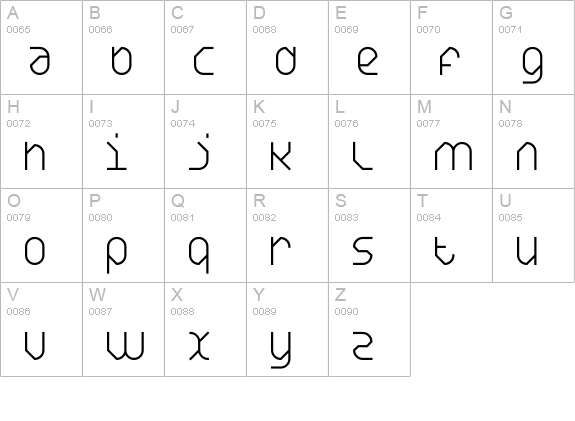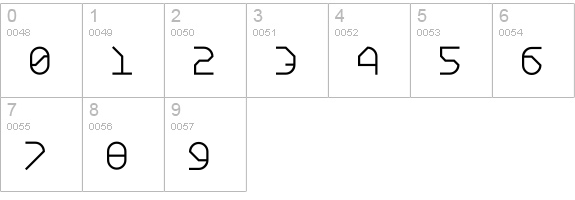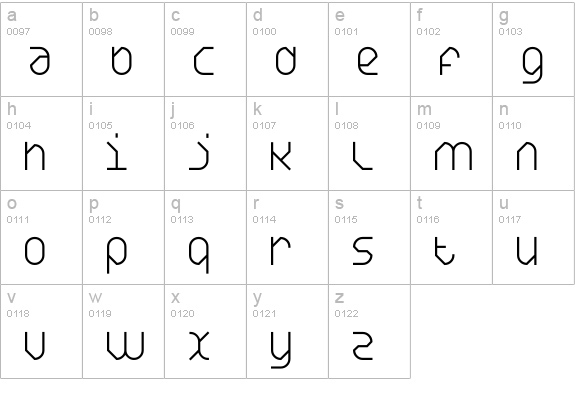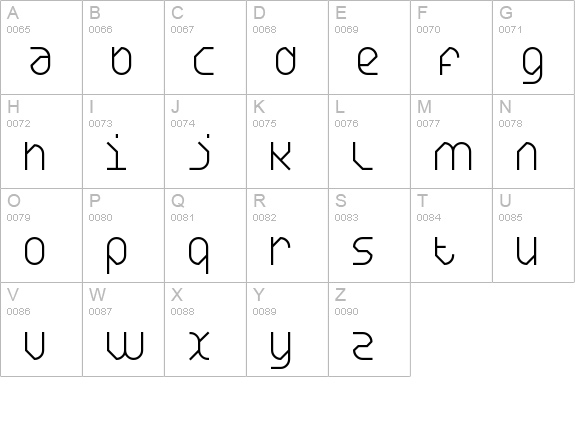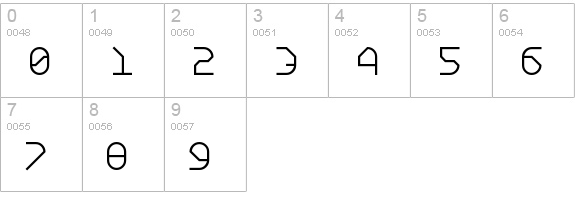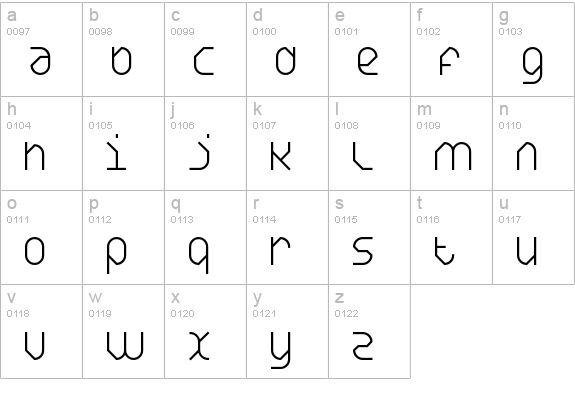
DS Yakuti45 Font Details
DS Yakuti45 is a visually striking font that exudes elegance and sophistication. Its unique design features sharp edges and clean lines, giving it a modern and edgy look. The font is perfect for creating eye-catching headlines, branding materials, and social media posts. What sets DS Yakuti45 apart is that it is available for free download at FontsMarket.com. This means that designers and creatives can easily access this premium font without any cost, making it a valuable addition to any project. Whether you are working on a professional design or a personal project, DS Yakuti45 offers versatility and style that will make your work stand out. Embrace the bold and dynamic energy of DS Yakuti45 in your designs and elevate your typography game. Download this stunning font for free today and unleash your creativity with ease.